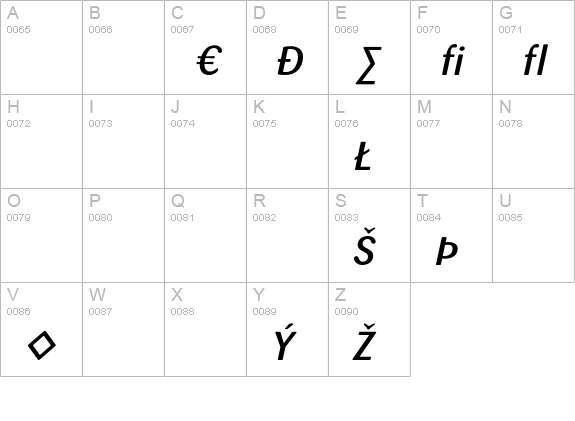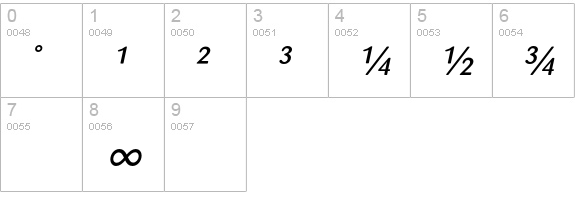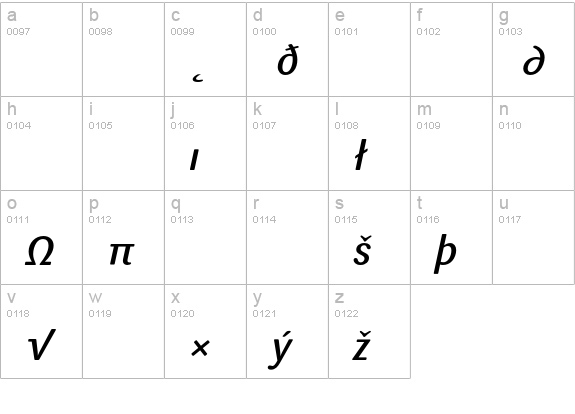
Sari-MediumItalicExp Font Details
Sari-MediumItalicExp is a stunning and versatile font that exudes elegance and sophistication. With its unique blend of curves and slants, this font adds a touch of flair to any design project. Whether you're creating a logo, designing a website, or crafting a stylish invitation, Sari-MediumItalicExp is sure to capture attention. What makes Sari-MediumItalicExp even more appealing is the fact that it is freely available to download at FontsMarket.com. This means that you can access this beautiful font without any cost or restrictions. Whether you're a professional designer or a hobbyist, you can enhance your creations with the timeless beauty of Sari-MediumItalicExp. The versatility of Sari-MediumItalicExp knows no bounds. Its medium weight and italic style make it perfect for both formal and informal designs. Whether you're creating a business card for a high-end brand or designing a flyer for a casual event, Sari-MediumItalicExp will effortlessly elevate your design to the next level. The attention to detail in Sari-MediumItalicExp is truly remarkable. Each letter is meticulously crafted, with precise strokes and beautiful curves. The result is a font that is not only visually appealing but also easy to read. Whether it's a headline or body text, Sari-MediumItalicExp ensures that your message is conveyed with clarity and style. With Sari-MediumItalicExp, you have the freedom to explore your creativity and bring your design visions to life. Its timeless appeal, combined with its accessibility, makes it a must-have for designers of all levels. So why wait? Download Sari-MediumItalicExp for free at FontsMarket.com and let your creativity soar.